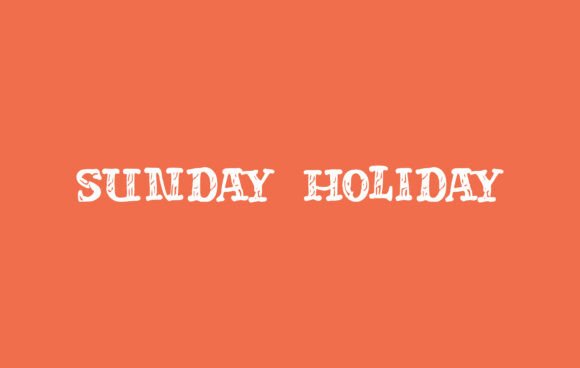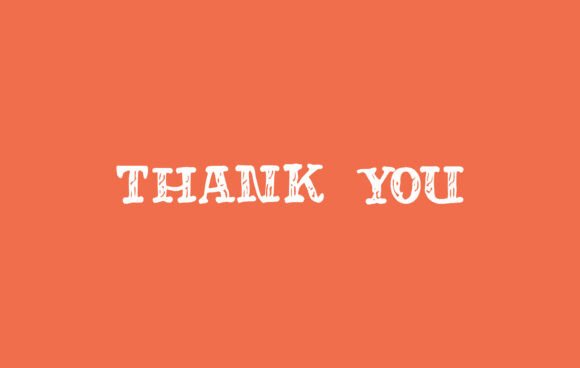
Introducing Hardy Kiwi Font: The Perfect Handwritten Font for Your Creative Projects
Are you a designer or crafter looking for a unique and authentic handwritten font to elevate your creative projects? Look no further than the Hardy Kiwi Font. This beautifully designed font is perfect for adding a romantic touch to your designs, and its legibility makes it ideal for use as both title and body text.
What Makes Hardy Kiwi Font Special?
Hardy Kiwi font is an authentic handwritten font that has been expertly designed to be a true favorite among designers and crafters. Its romantic touch and elegant feel make it perfect for a wide range of creative projects, from magazine headlines and social media graphics to branding, wedding invitations, and cards.
Key Features of Hardy Kiwi Font
- Authentic Handwritten Style: Hardy Kiwi font is a genuine handwritten font that adds a personal touch to your designs.
- Romantic Touch: The font’s elegant feel and romantic style make it perfect for projects that require a touch of sophistication.
- Legible: The font is highly legible, making it suitable for use as both title and body text.
- Versatile: Hardy Kiwi font can be used for a wide range of creative projects, including magazine headlines, social media graphics, branding, wedding invitations, and cards.
Uses for Hardy Kiwi Font
Hardy Kiwi font is a versatile font that can be used for a variety of creative projects. Here are some ideas to get you started:
- Magazine Headlines: Use Hardy Kiwi font to create eye-catching headlines for your magazine or blog.
- Social Media Graphics: Add a touch of elegance to your social media graphics with Hardy Kiwi font.
- Branding: Use Hardy Kiwi font to create a unique and memorable brand identity.
- Wedding Invitations: Add a romantic touch to your wedding invitations with Hardy Kiwi font.
- Cards: Use Hardy Kiwi font to create beautiful and personalized cards for special occasions.
Why Choose Hardy Kiwi Font?
There are many fonts available that claim to be handwritten and elegant, but Hardy Kiwi font stands out from the rest. Here are a few reasons why:
- Unique Design: Hardy Kiwi font has a unique and authentic design that sets it apart from other fonts.
- High-Quality: The font is expertly designed to ensure high-quality and legibility.
If you’re looking for a beautiful and authentic handwritten font to elevate your creative projects, look no further than Hardy Kiwi font. Its romantic touch, elegant feel, and legibility make it perfect for a wide range of creative projects. With its versatility and ease of use, Hardy Kiwi font is sure to become a favorite among designers and crafters.